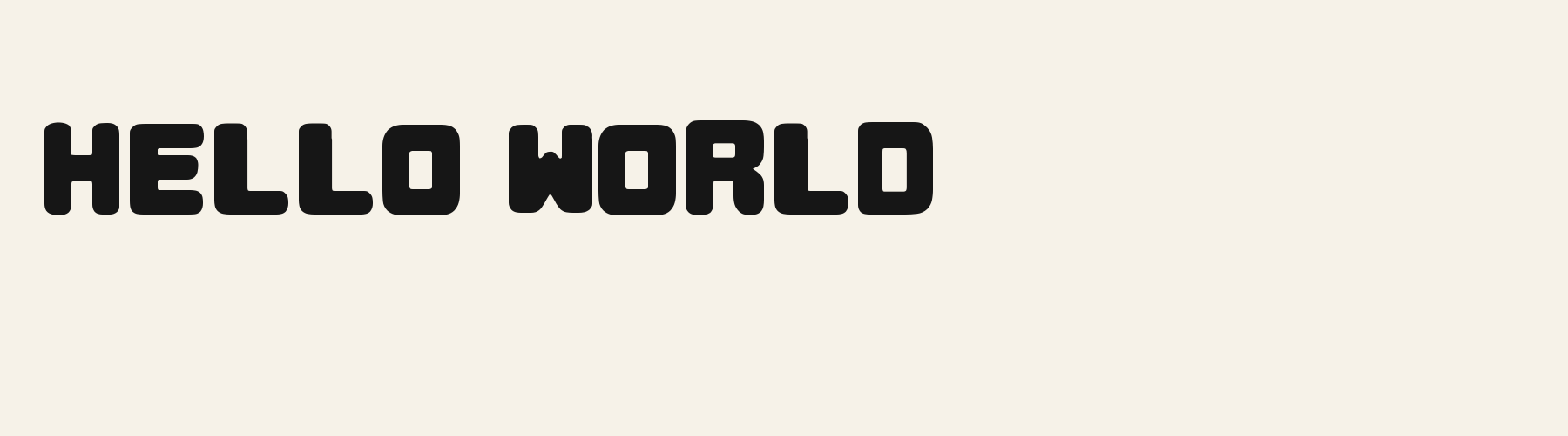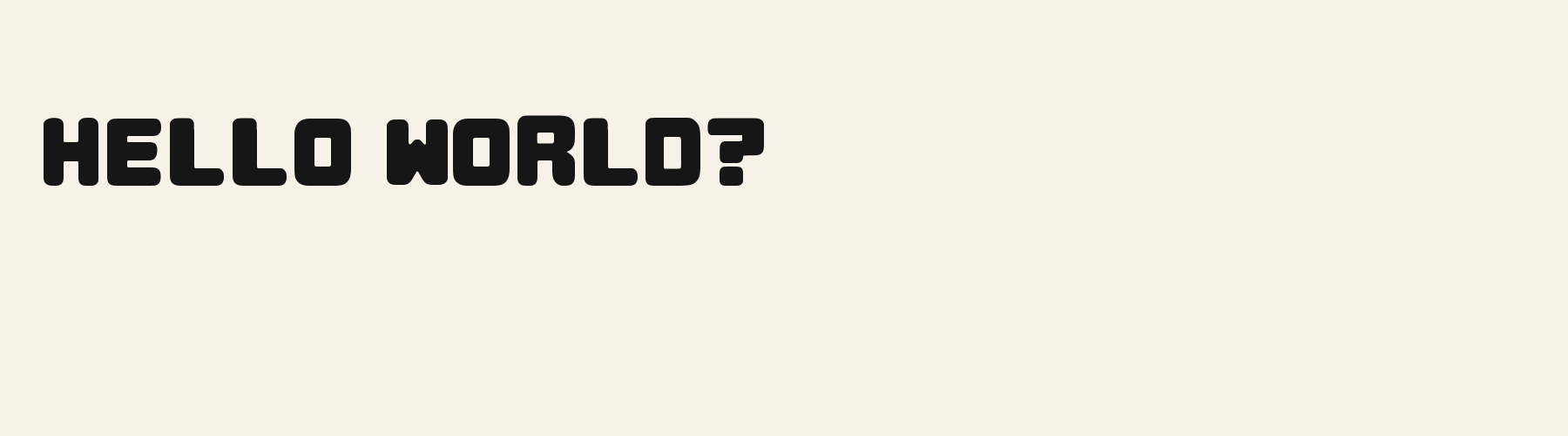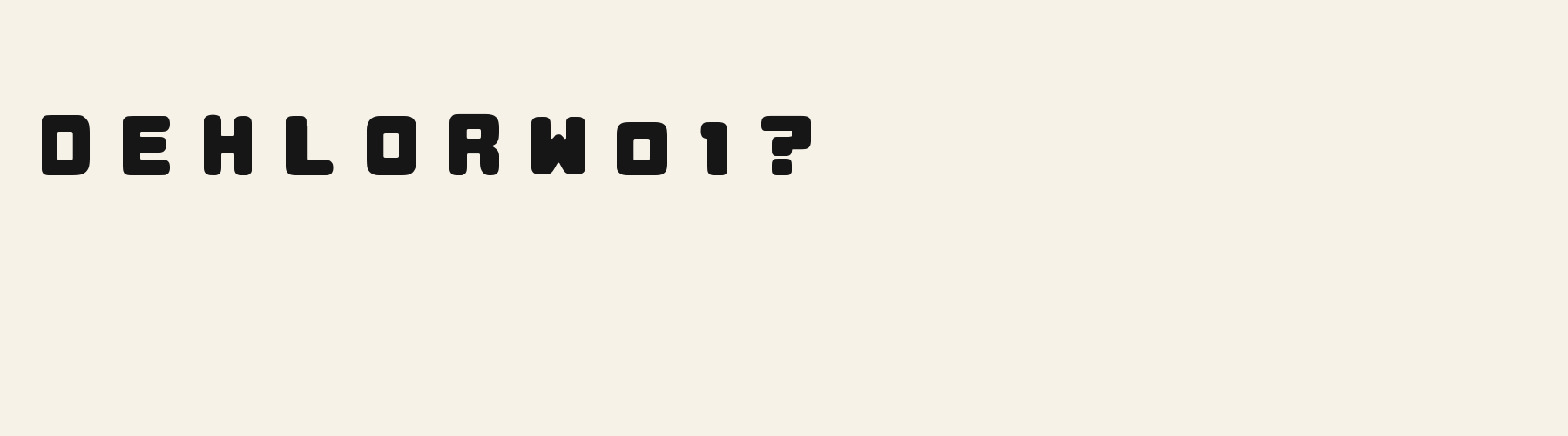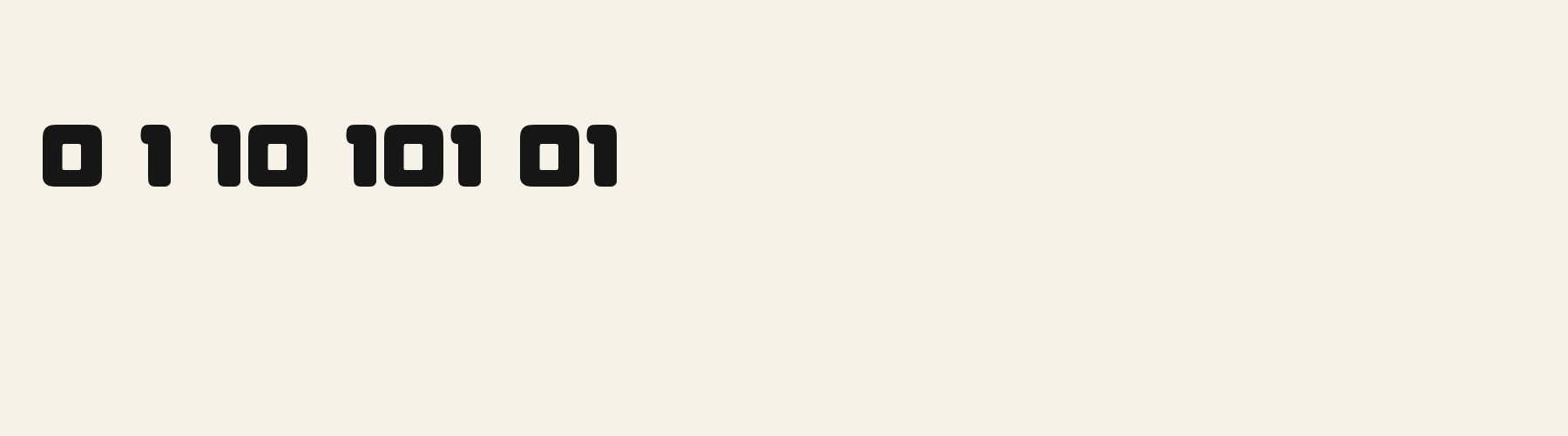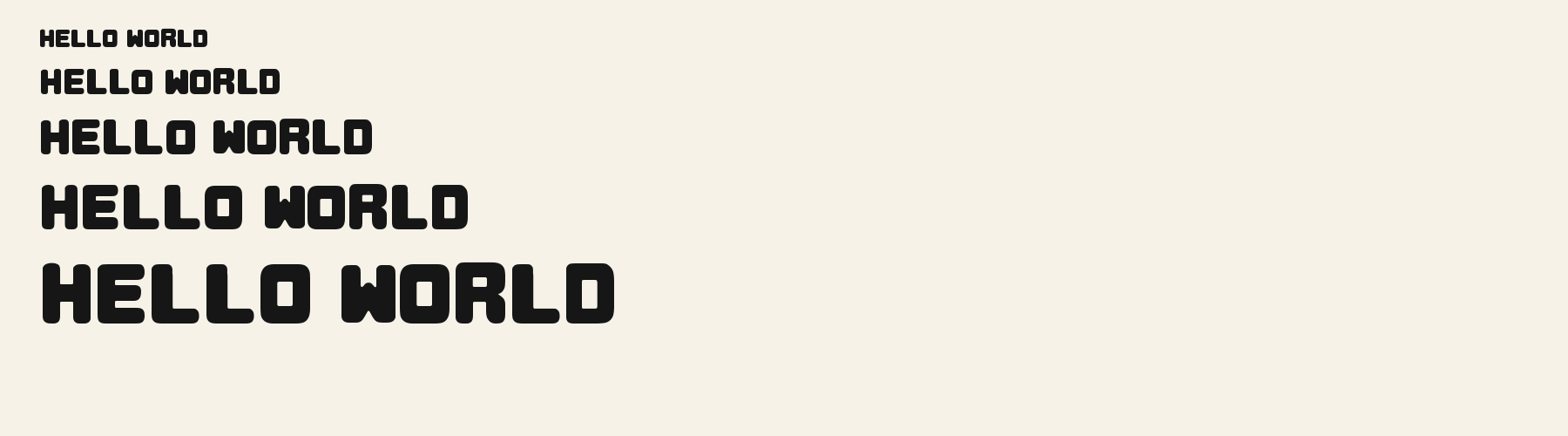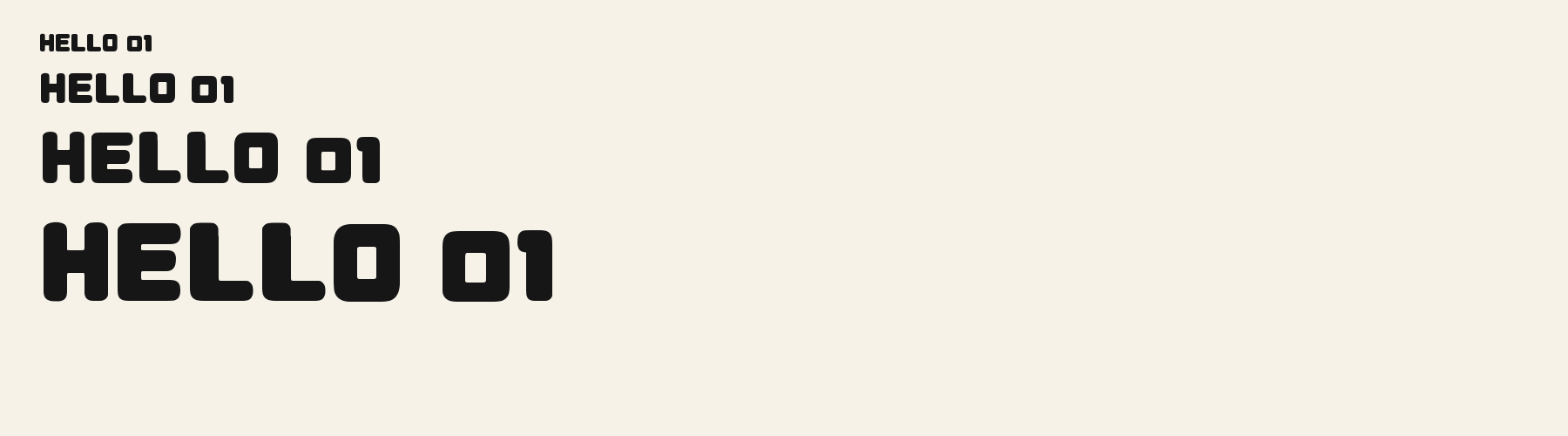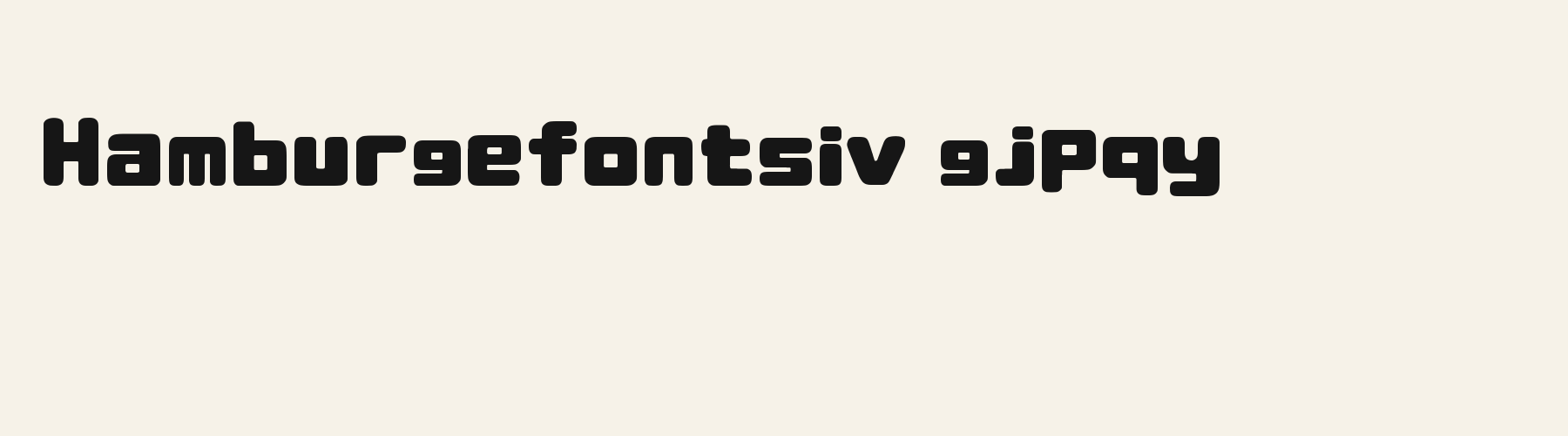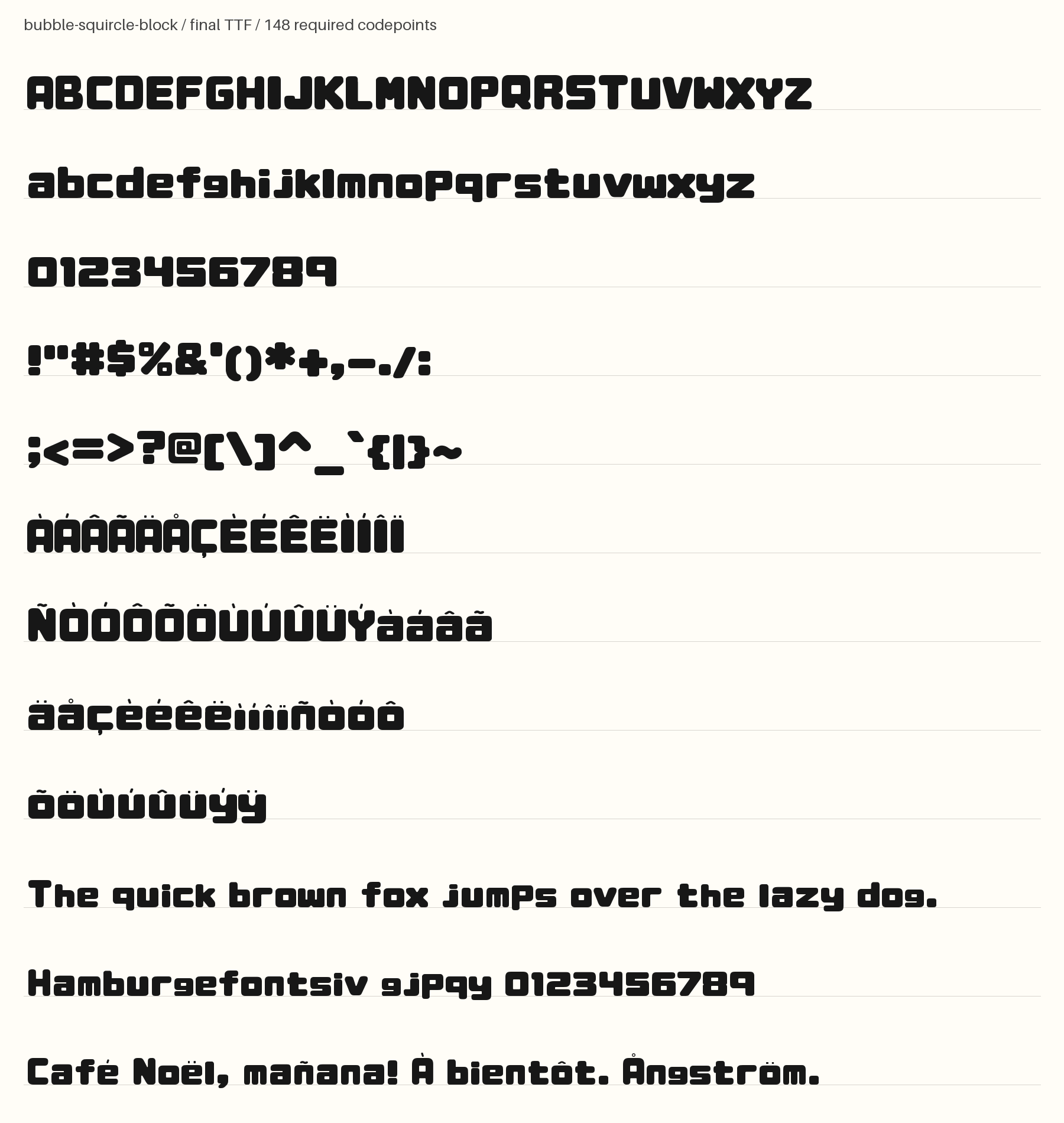
Bubble Pillow Serif
DisplayBubble Pillow Serif
Bubble Squircle Block is a stickers and compact headings. Heavy even soft rectangular strokes and open squared counters. Best for stickers and compact headings.
Includes all 95 printable Basic Latin characters and 148 glyphs in total.